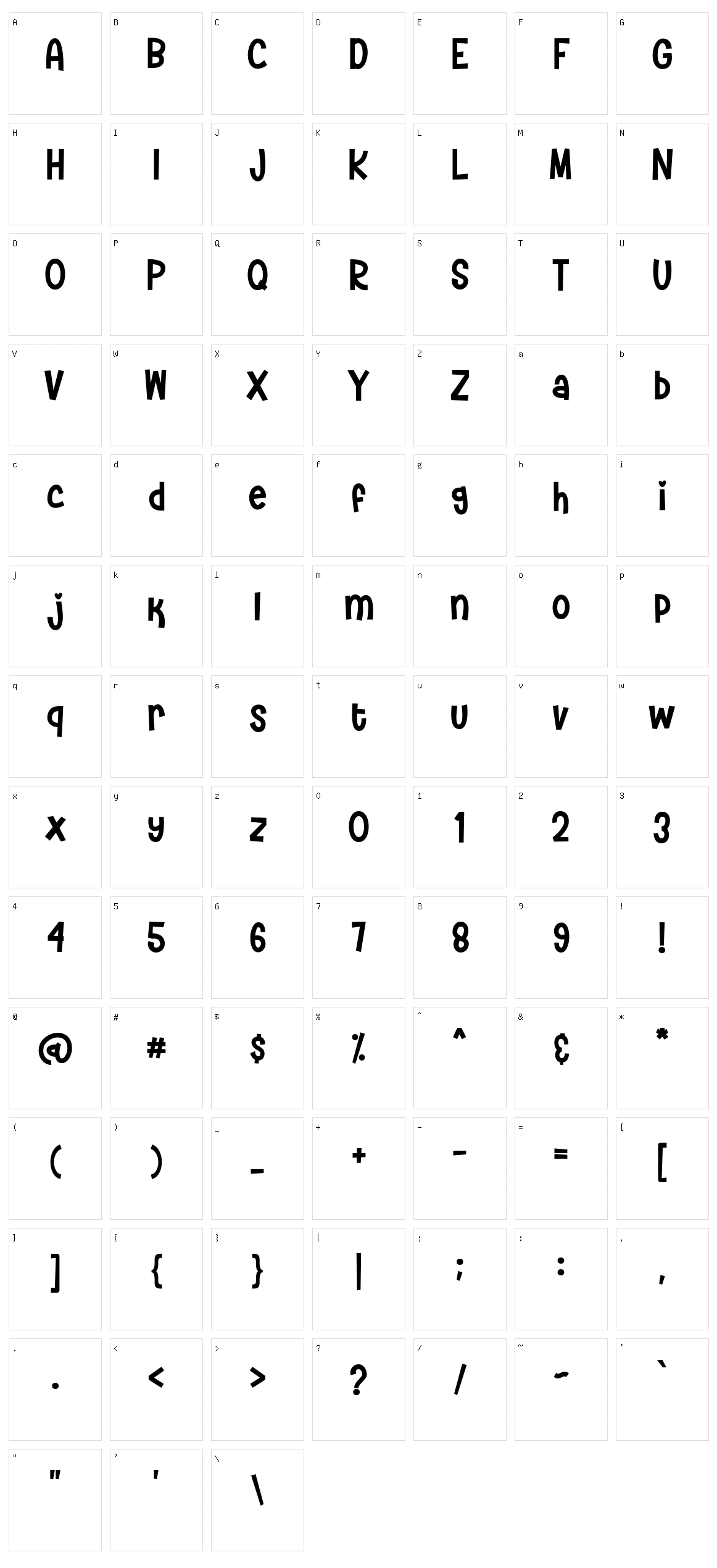
The free font House Easter is carefully designed by Gilar Studio, showcasing a thoughtful balance of creativity and usability and falls under the Cartoon font style. When you download the ZIP file, it contains only 138.22 KB of font files, making it lightweight and quick to download. Please review the license details below to understand permitted usage and distribution rights. If license information is not available, we recommend using this font for personal projects only or contacting the author directly for commercial usage permissions.